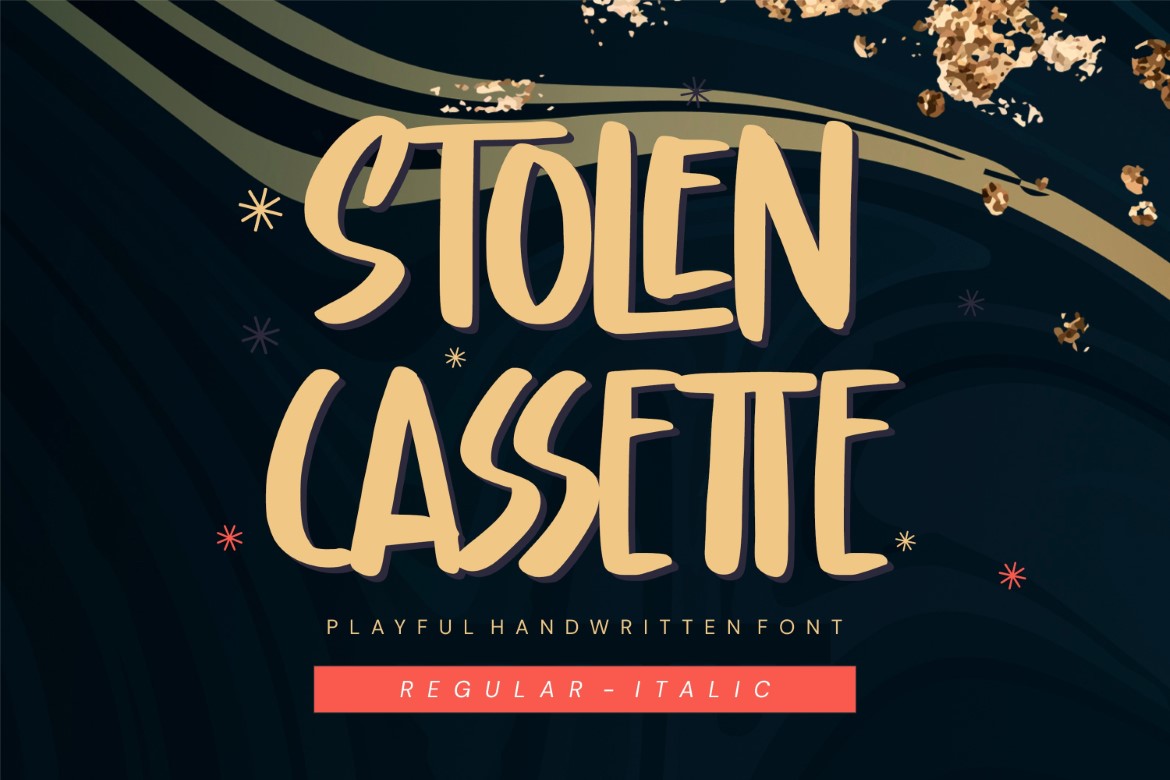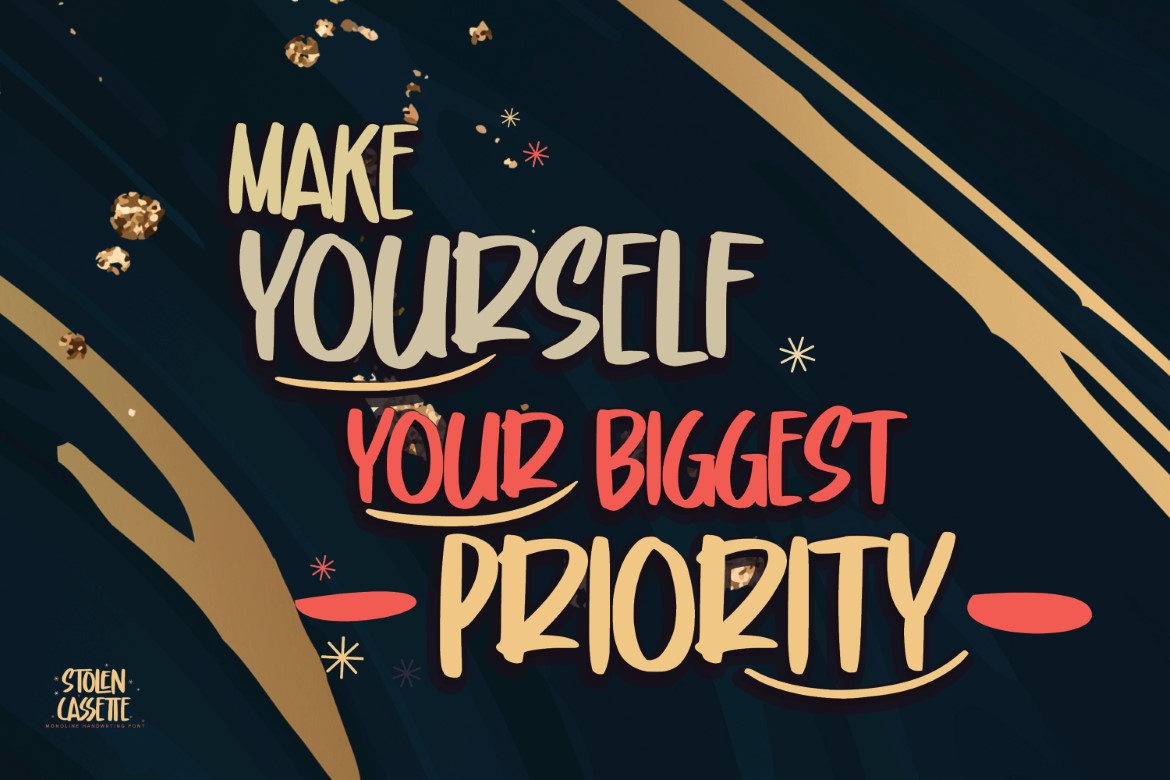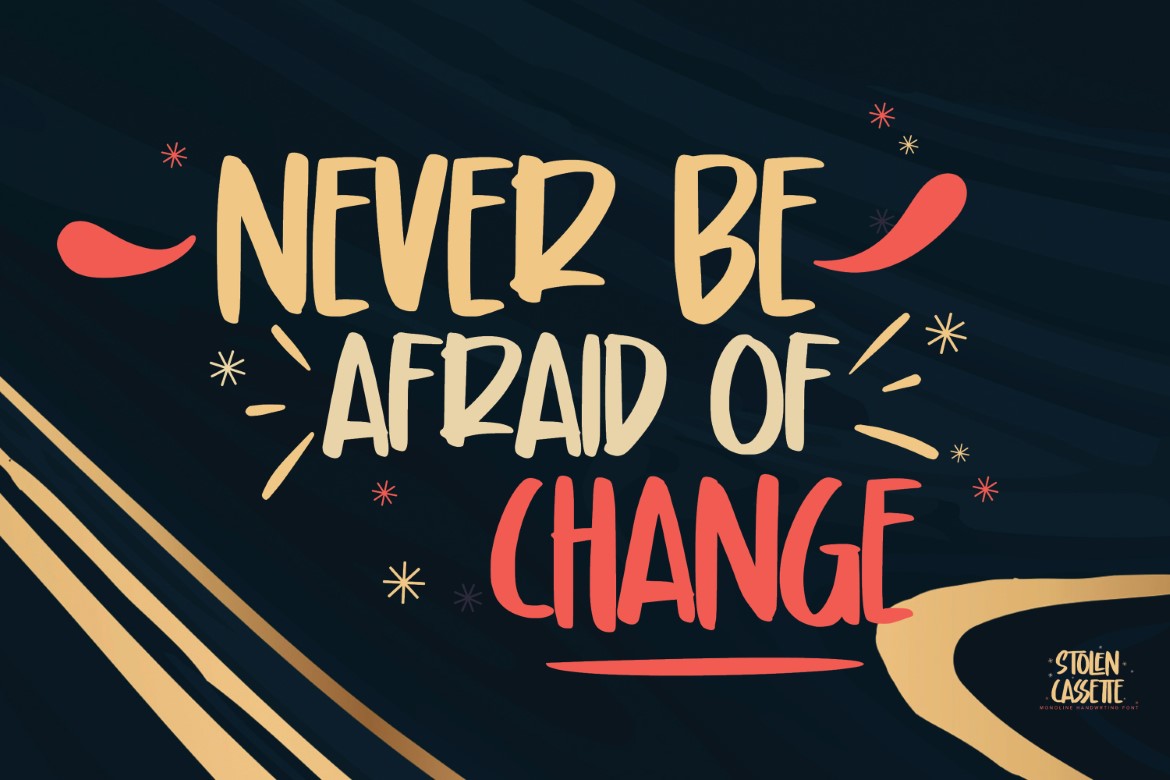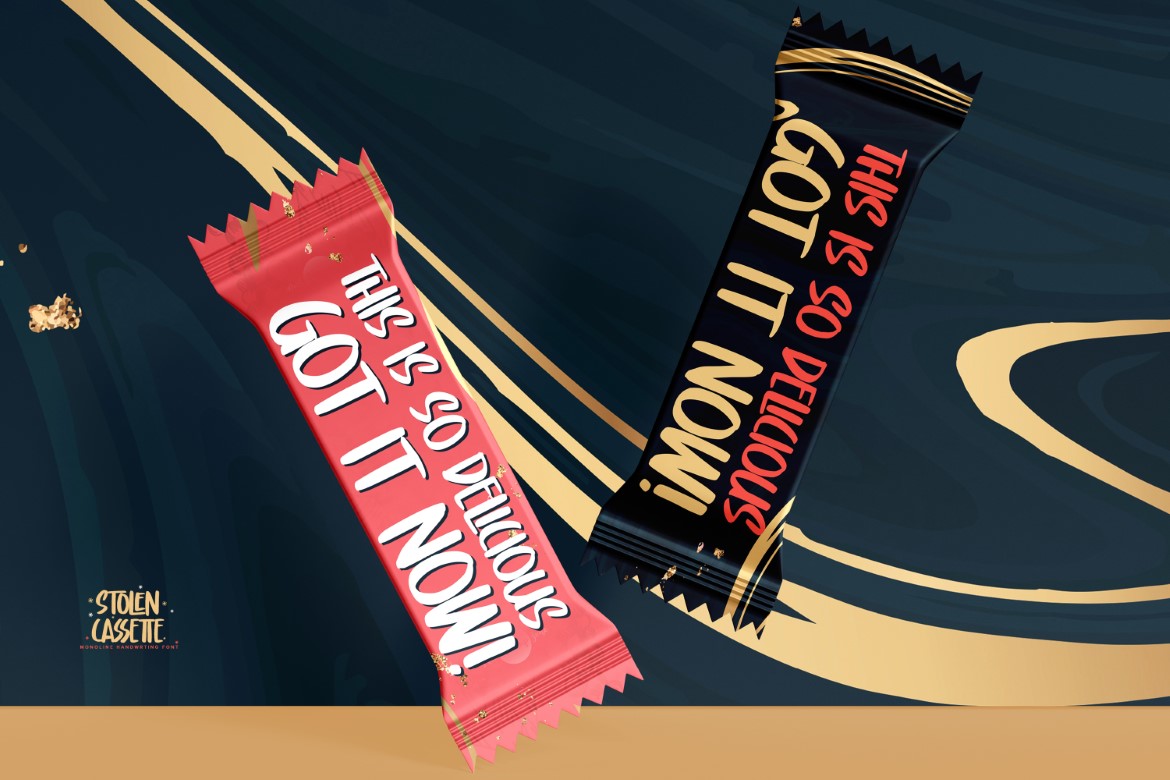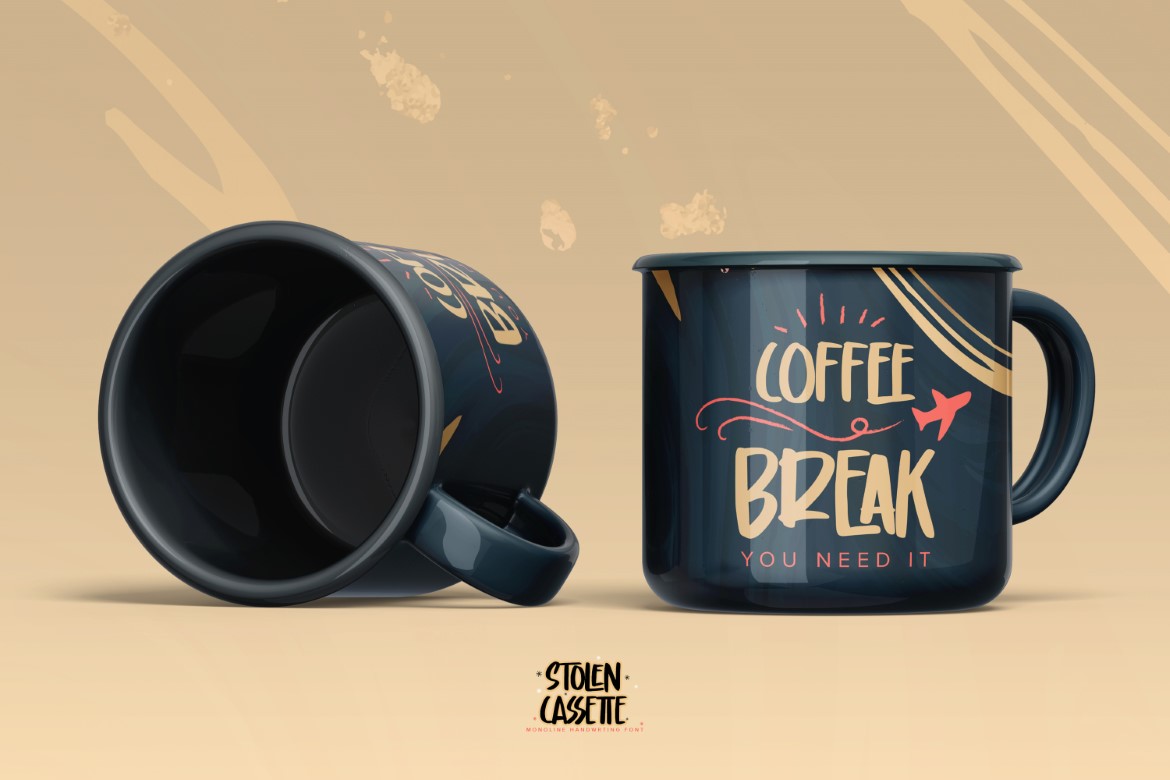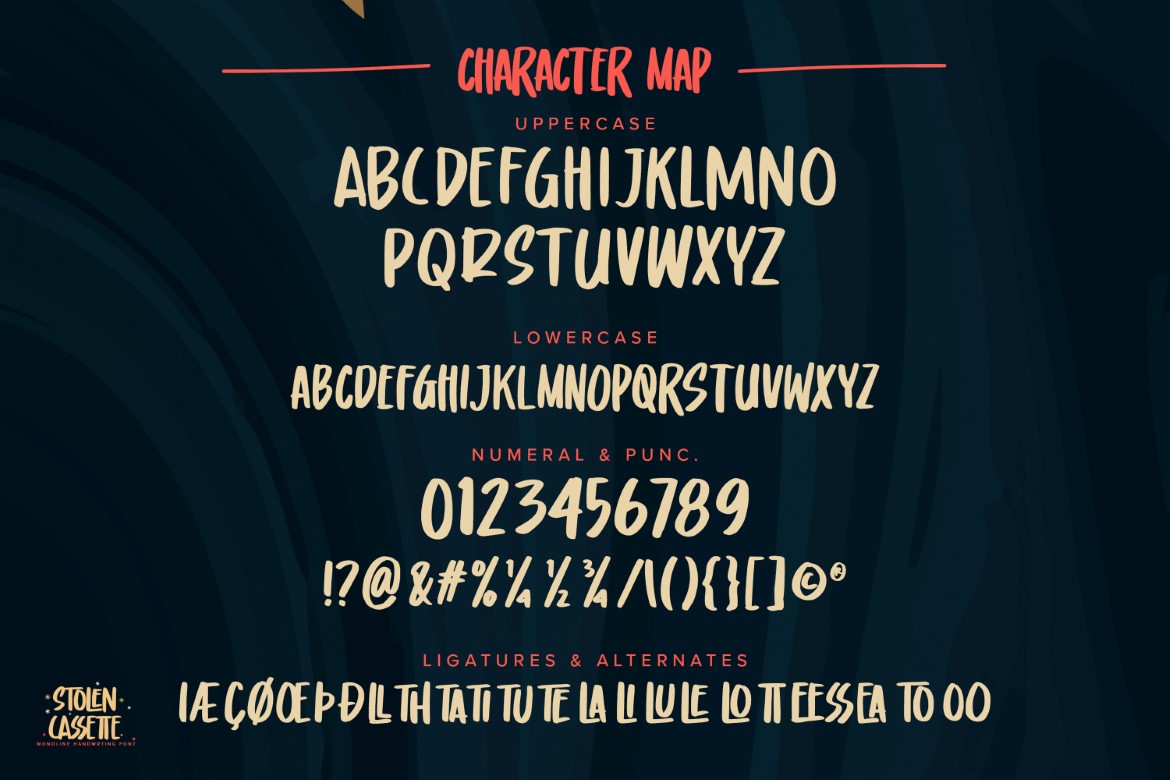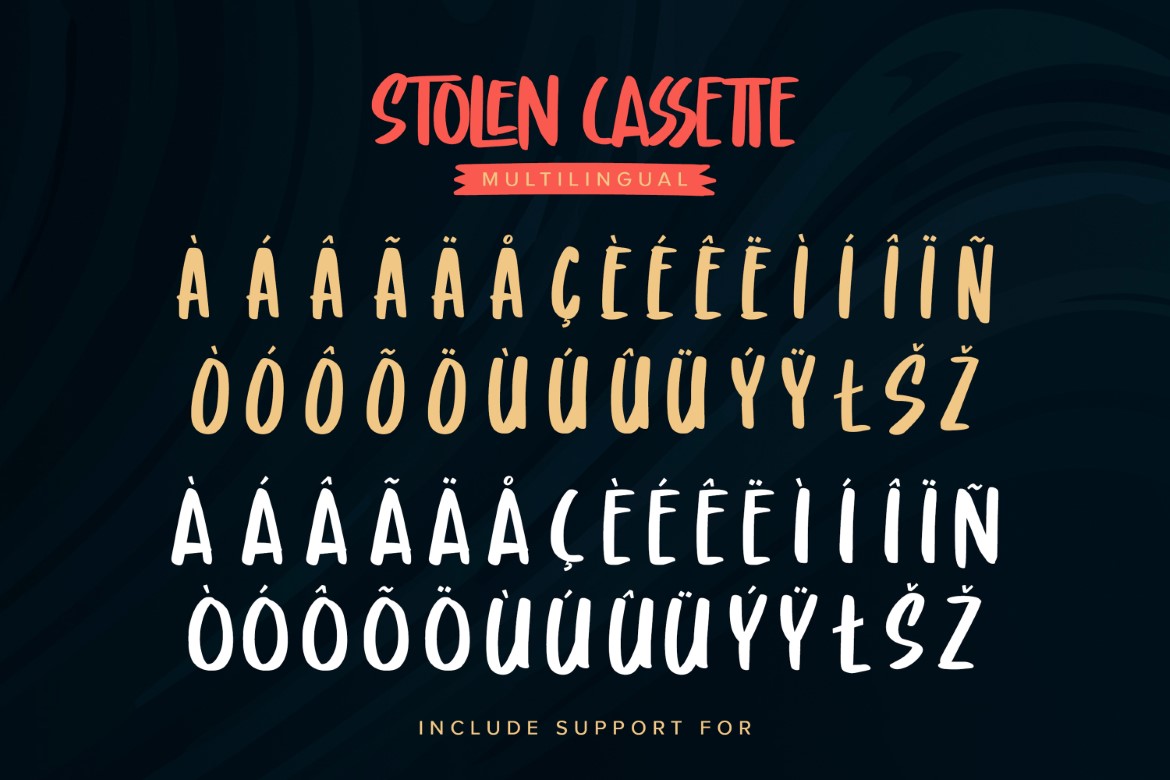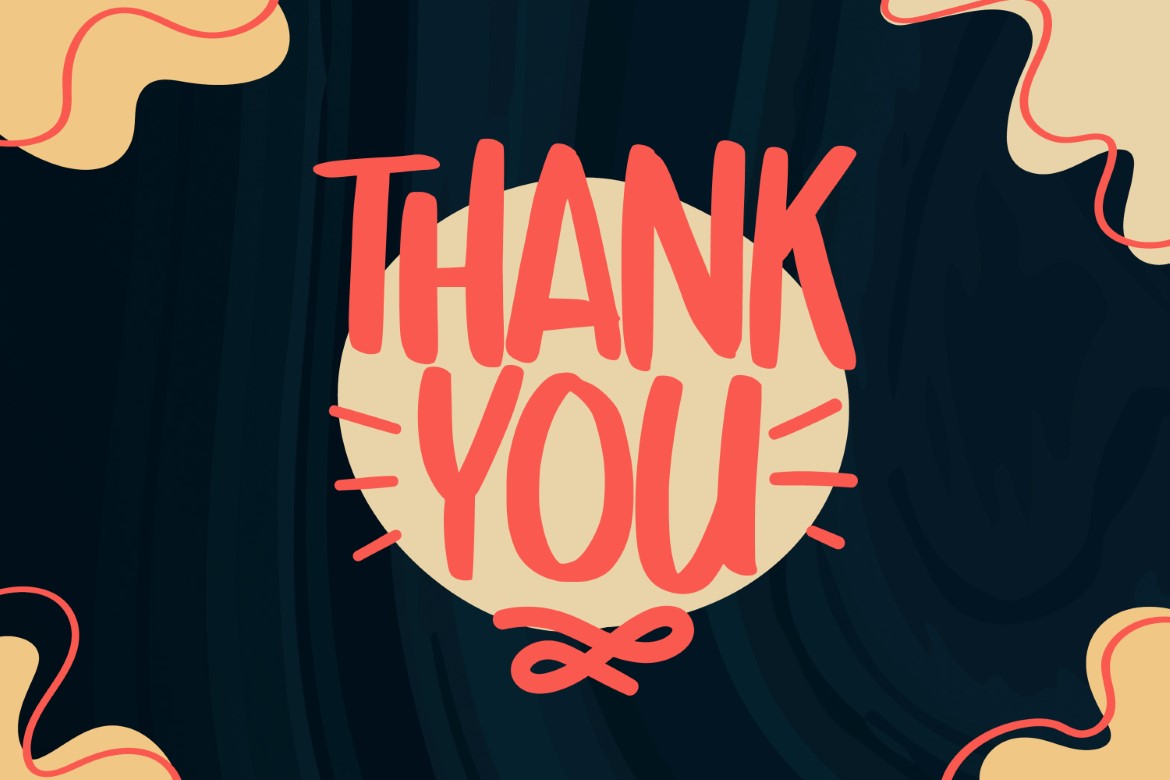
Stolen Cassette – Playful Handwritten Display Font is an Authentic brush Font that is written casually and quickly.
That is whyStolen Cassette has a authentic, and strong characteristic more natural look.
Stolen Cassette Perfect for designs, branding projects, Logo design,Quotes product packaging and another Project that require cool strong display font.